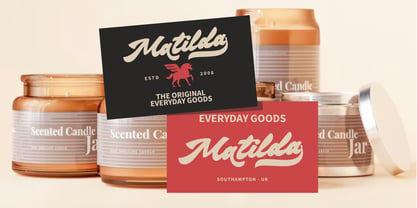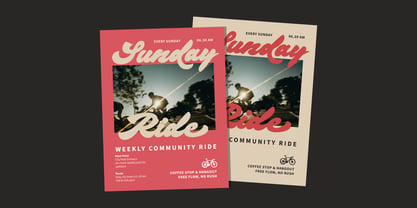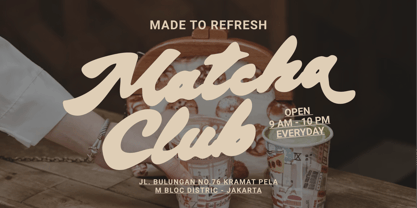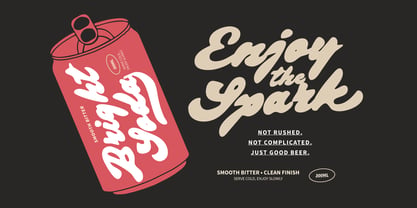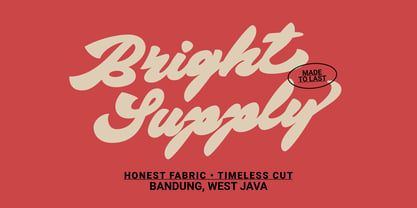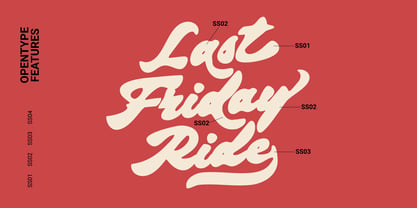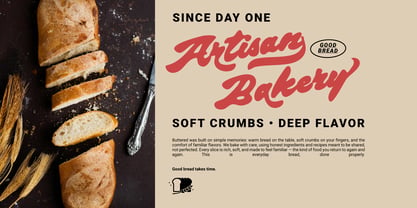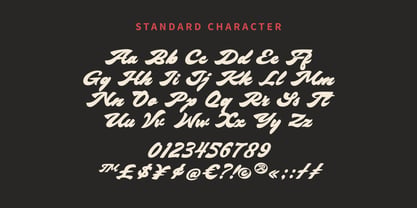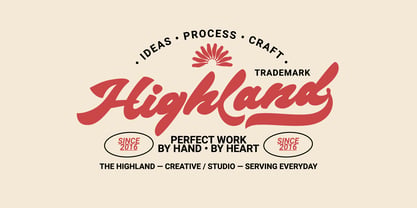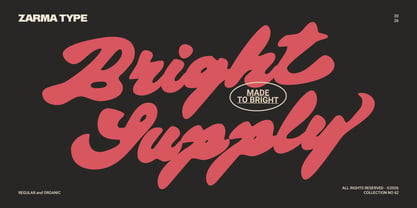
Bright Supply
Bright Supply feels like the kind of lettering you would spot on a favorite local shop sign, a trusted bakery wrapper, or a poster worth saving. The strokes are thick and confident, yet the movement stays smooth and welcoming. That combination gives it a strong identity for branding while keeping the overall mood relaxed and human. The regular style delivers a cleaner finish, while the organic version brings extra texture and soul to the page. What makes Bright Supply special is how naturally it adds personality without overwhelming the layout. A few words are often enough to set the tone. It can feel nostalgic on packaging, energetic on social graphics, and stylish on merchandise. If you want typography that looks crafted, bold, and approachable at the same time, Bright Supply gives you that flexibility with ease.